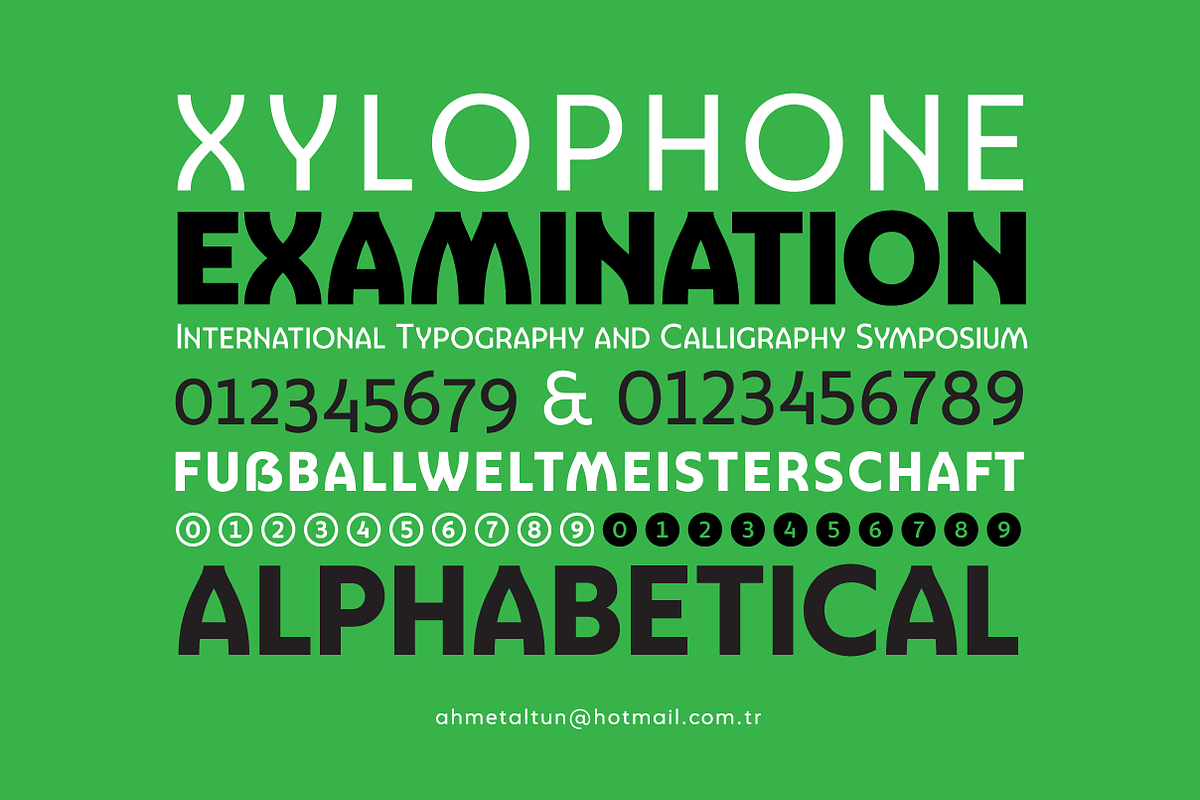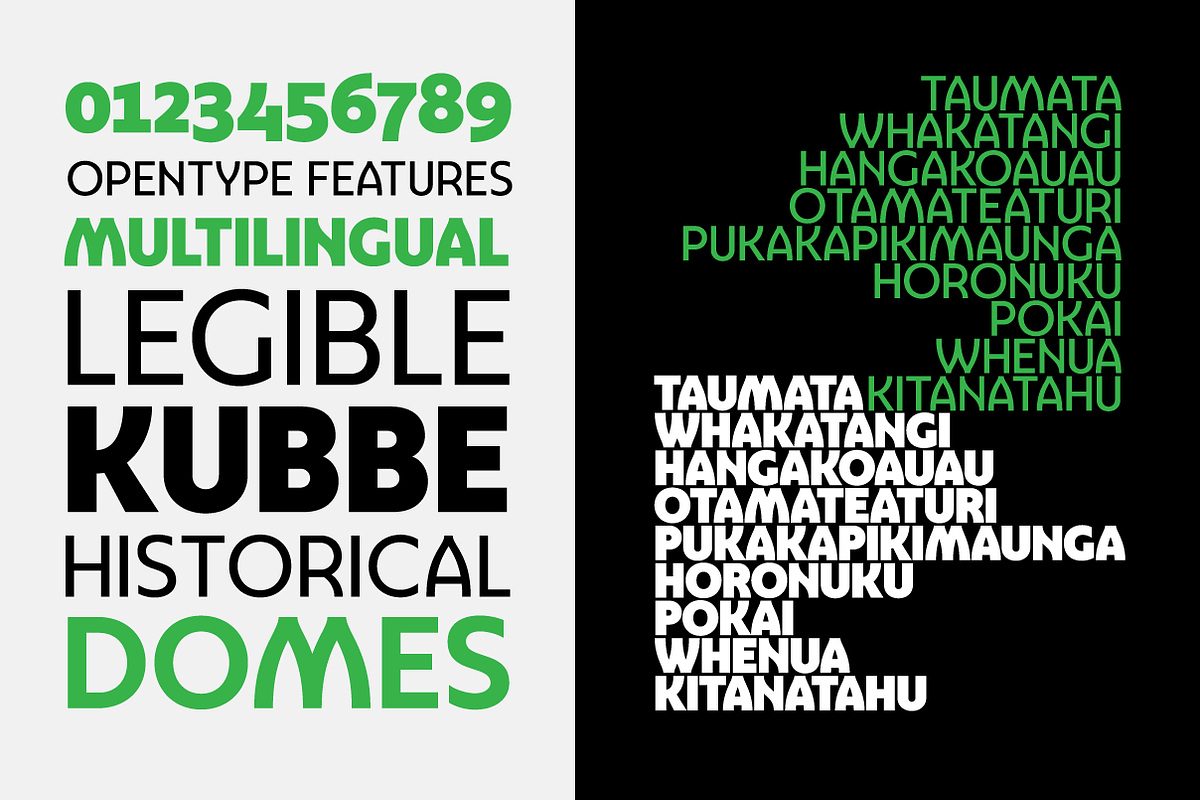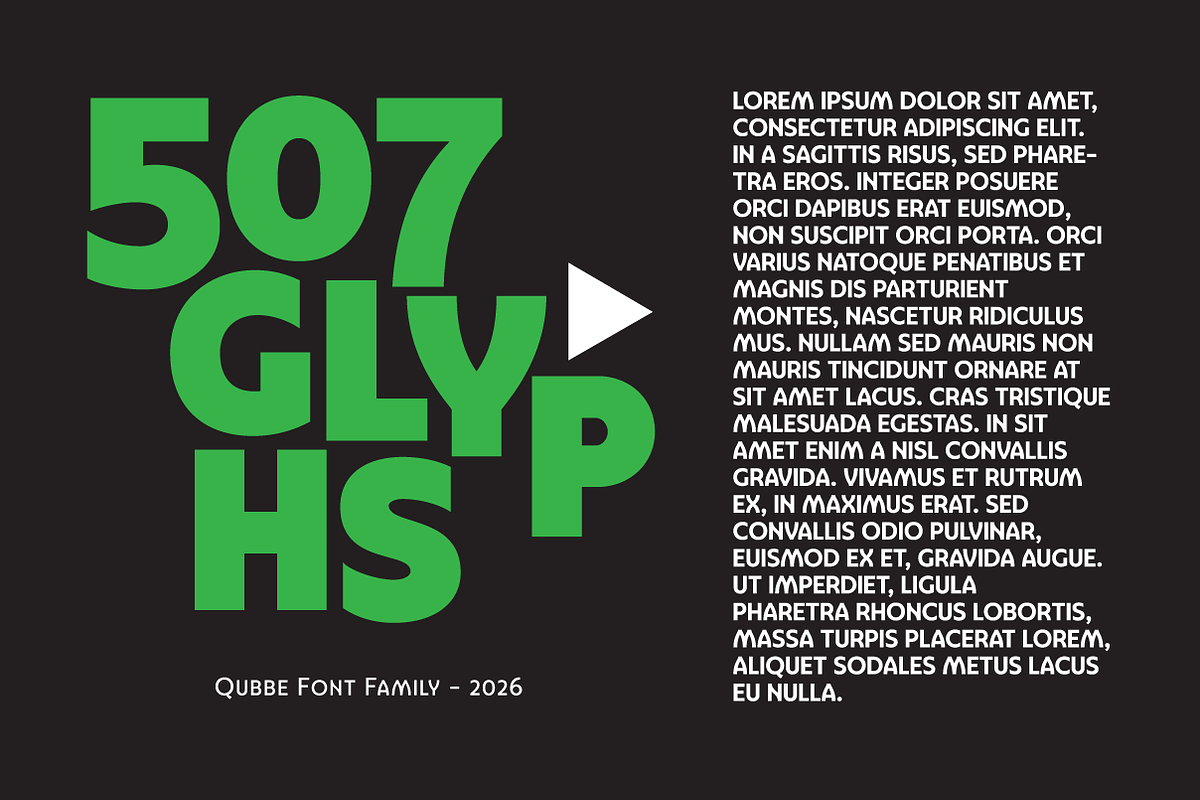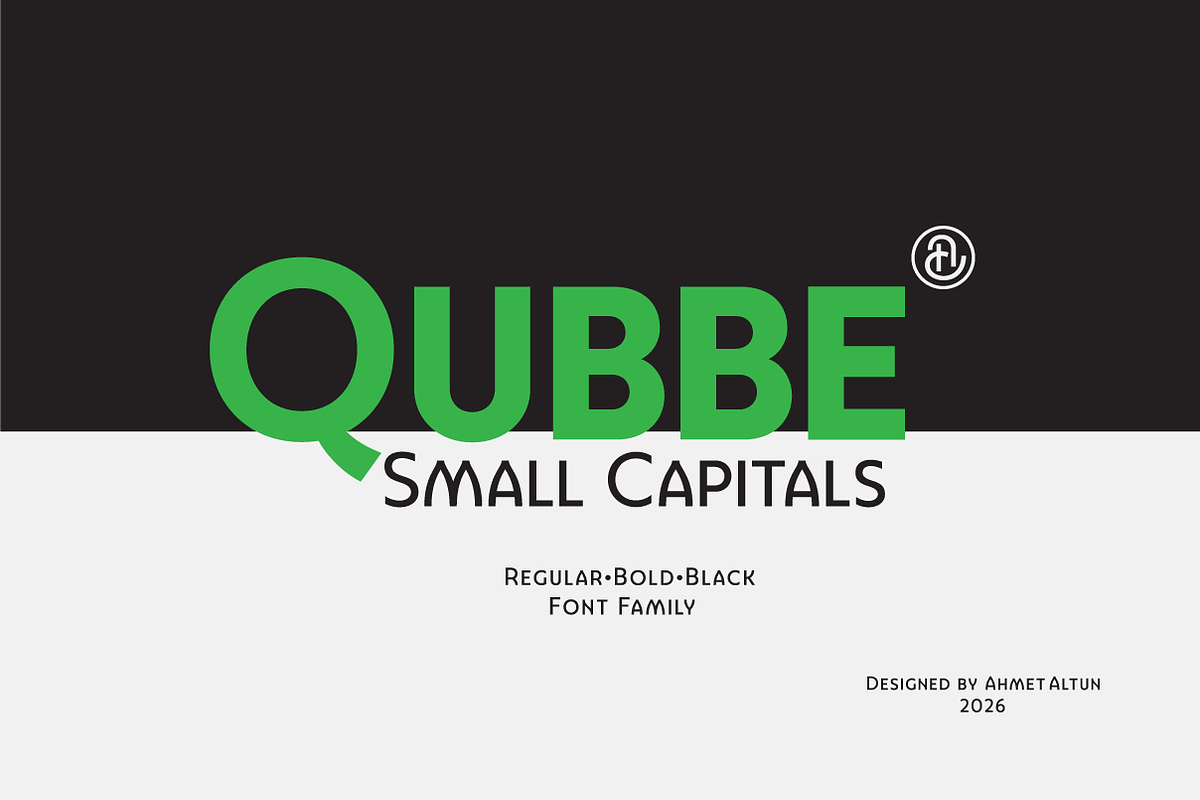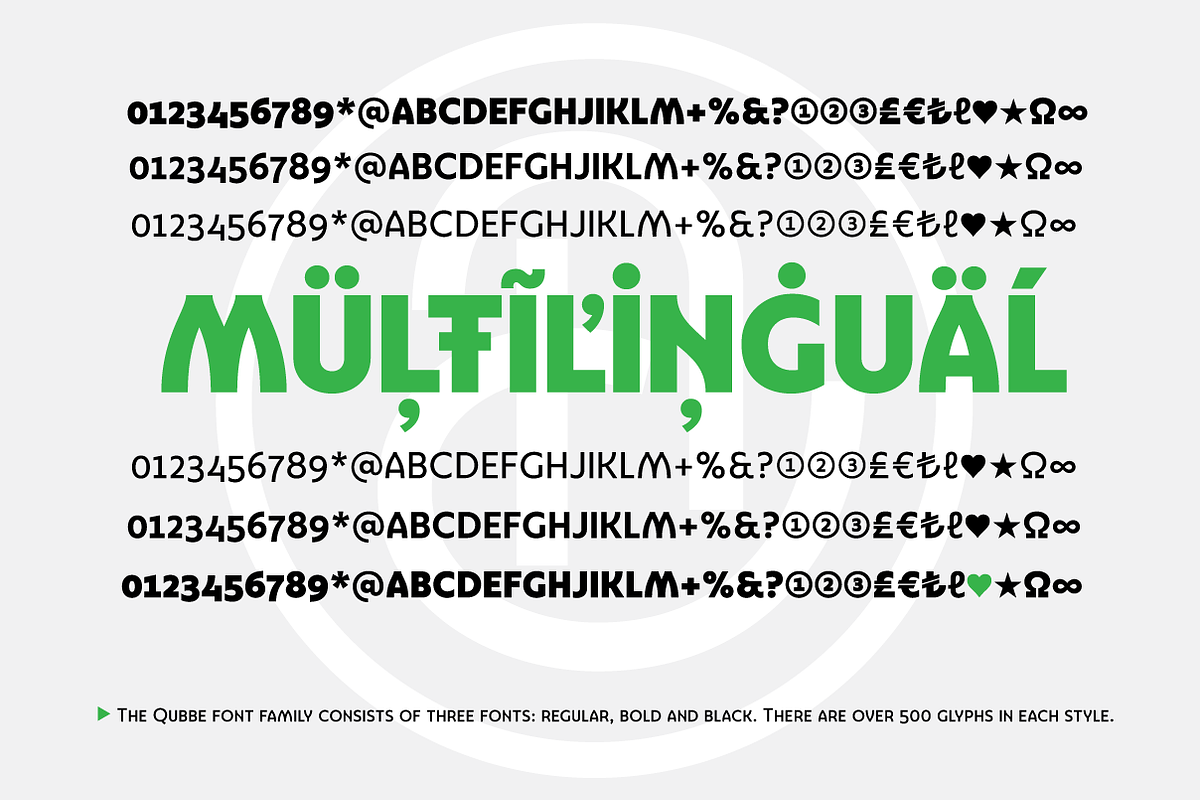
Qubbe
The Qubbe font family consists of three weights. It takes its name from the dome-like style of certain letters. It contains a total of 507 glyphs and includes all the necessary OpenType features. The lowercase letters are designed as small caps. It can be an excellent choice of font for graphic design projects, particularly for headlines and posters.